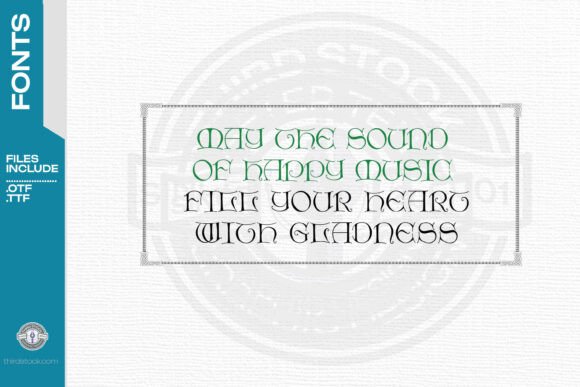
Unleash the Mystique of Celtic Finery Font
Have you ever found yourself lost in a world of fantasy, where mythical creatures roam and legendary heroes rise? Perhaps it was during a late-night gaming session, or while immersed in a historical novel. Whatever the case, you’ve probably stumbled upon a font that transported you to a realm of mystique and wonder. For designers, that font is often the key to unlocking a project’s full potential. And for those seeking to add a touch of ancient magic to their work, look no further than the Celtic Finery Font.
This all-caps decorative display typeface is inspired by the intricate knotwork and calligraphy of ancient insular art. With its elegant, curved serifs and subtle flourishes, Celtic Finery Font is perfect for projects that demand a sense of history, tradition, and mystique.
Whether you’re designing a fantasy book cover, a historical brand, or a specialized craft beverage label, Celtic Finery Font is the perfect choice. Its unique character set and intricate glyphs make it a valuable tool for designers looking to add a touch of elegance and timeless craftsmanship to their work.
Celtic Finery Font Key Features
- Font Styles: Celtic Finery Font comes in 2 font styles: Regular and Ornate, offering a wide range of design options.
- Character Set: The font includes a comprehensive set of characters, including Latin, Cyrillic, and Greek alphabets, as well as punctuation and symbols.
- Unique Characteristics: Celtic Finery Font features intricate knotwork and interlacing patterns, reminiscent of ancient Celtic art, adding a touch of elegance and sophistication to any design.
Celtic Finery Font Review
I recently had the chance to work with the Celtic Finery Font, and I must say it’s a unique addition to any design project. ✨ The intricate details and ornate flourishes make it perfect for creating a regal or mystical atmosphere. The font’s elegance and sophistication are undeniable, and it’s sure to impress.
- ✨ Beautifully crafted details, including Celtic knots and other traditional elements
- ✨ Suitable for use in a wide range of projects, from branding to editorial design
However, I did encounter some limitations when working with the font. ⚠️ The large file size can make it difficult to use in projects with tight deadlines or limited storage space. Additionally, the font’s complexity can sometimes make it challenging to read, particularly at smaller font sizes.
Overall, I think the Celtic Finery Font is a great choice for designers looking to add a touch of sophistication and elegance to their projects. While it may have some limitations, its unique features and beauty make it well worth considering.
Tips for Getting the Most Out of Celtic Finery Font
1. Use Celtic Finery Font to add a touch of elegance and sophistication to your designs.
2. Pair Celtic Finery Font with other elegant fonts for a cohesive look.
3. Experiment with different font sizes and styles to create visual interest.
Celtic Finery Font is ideal for:
2. Luxury branding and marketing materials.
3. Historical or cultural-themed designs.
Q: Are there any specific font sizes or resolutions recommended for optimal display of Celtic Finery Font?
For optimal display, we recommend using the Celtic Finery Font at font sizes ranging from 12pt to 24pt, and resolutions of 300 DPI or higher. This will ensure that the intricate details of the font are preserved and displayed clearly, even at larger sizes.